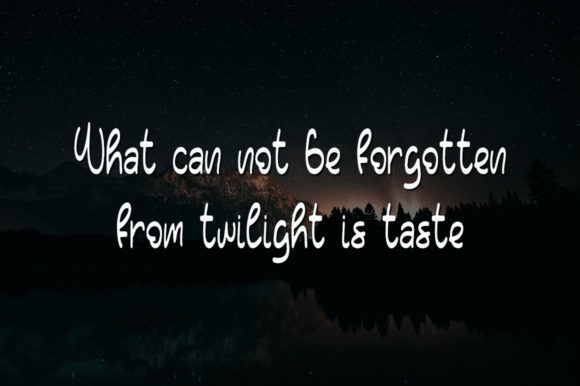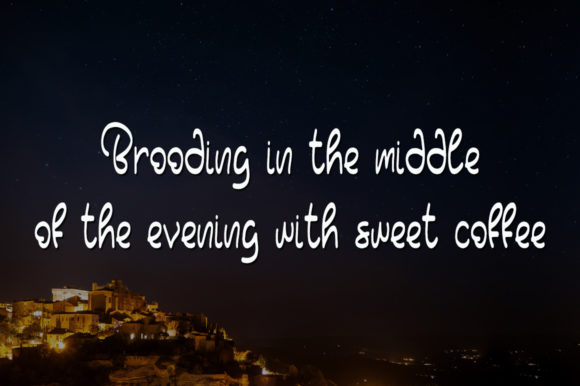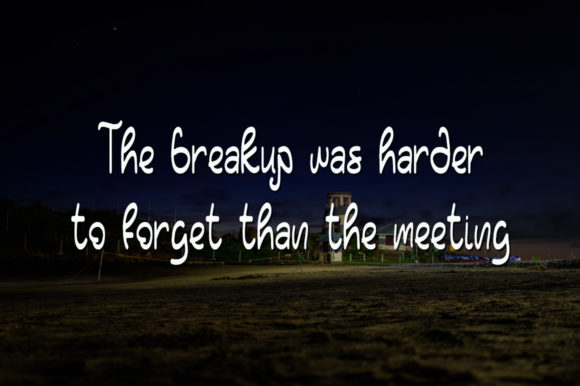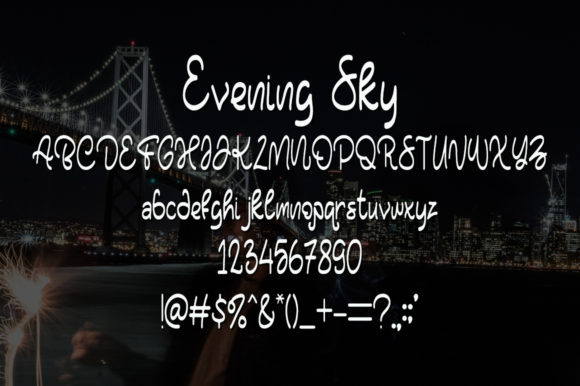
Introducing Evening Sky Font: Elegance and Delicacy in Every Swash
In the realm of typography, few fonts capture the essence of elegance and delicacy as beautifully as the Evening Sky Font. This exquisite, handwritten font is designed to bring a touch of sophistication and charm to a wide array of creative projects. Whether you’re working on letterheads, titles, stationery, or any other crafty ideas, Evening Sky is poised to become your go-to choice for adding that extra layer of refinement.
The Beauty of Evening Sky Font
Evening Sky Font stands out with its sweet and delicate swashes, meticulously crafted to add a unique flair to any design. Its elegant and dainty appearance makes it an ideal choice for designers and crafters looking to imbue their work with a sense of luxury and grace. The font’s original look is versatile enough to appeal to a broad spectrum of creative endeavors, ensuring that your projects stand out with a distinctive charm.
Key Features of Evening Sky Font
- Elegant and Dainty Design: The font boasts an exquisite, handwritten style that exudes elegance and delicacy.
- Sweet and Delicate Swashes: Each swash is carefully designed to add a touch of sophistication to your designs.
- Versatility: Suitable for a wide range of projects, including letterheads, titles, stationery, and more.
- Original Look: Offers a unique aesthetic that will set your creations apart.
Perfect for Crafty Ideas
For crafters and designers, finding the right font can often be a challenge. Evening Sky Font is here to solve that problem. Its unique blend of elegance and playfulness makes it perfect for:
- Letterheads: Add a professional yet personal touch to your correspondence.
- Titles: Create captivating headings for articles, blogs, or books.
- Stationery: Elevate your greeting cards, invitations, and other stationery with a touch of elegance.
- Branding: Use it for logos or brand names to convey a sense of luxury and refinement.
Tips for Using Evening Sky Font
To make the most of Evening Sky Font, consider the following tips:
- Pair with Complementary Fonts: Combine Evening Sky with simpler fonts for a balanced look.
- Adjust Swashes: Experiment with the swashes to find the perfect fit for your design.
- Play with Colors: While the font itself is elegant, experimenting with different colors can enhance its beauty.
Evening Sky Font is more than just a typeface; it’s a design element that can transform your projects with its elegant and dainty charm. Whether you’re a professional designer or a DIY crafter, this font offers a simple yet effective way to add sophistication and personality to your work. With its sweet and delicate swashes and versatile design, Evening Sky Font is sure to become an indispensable part of your creative toolkit.